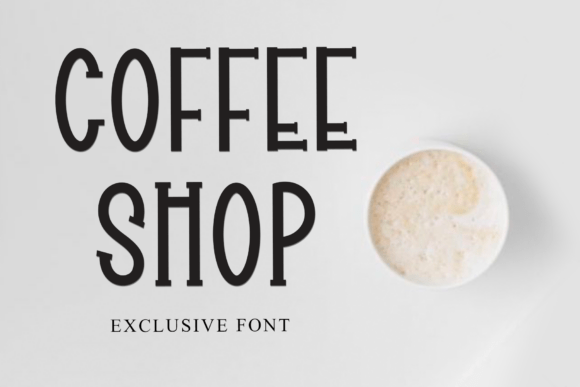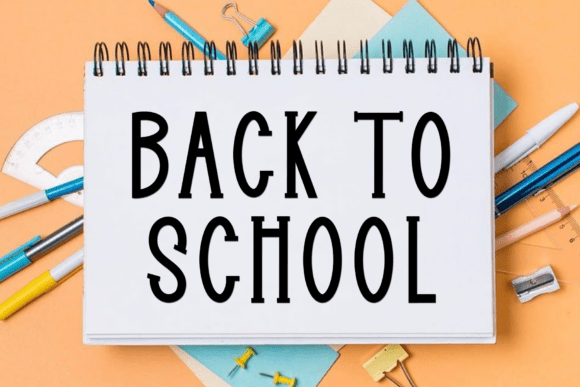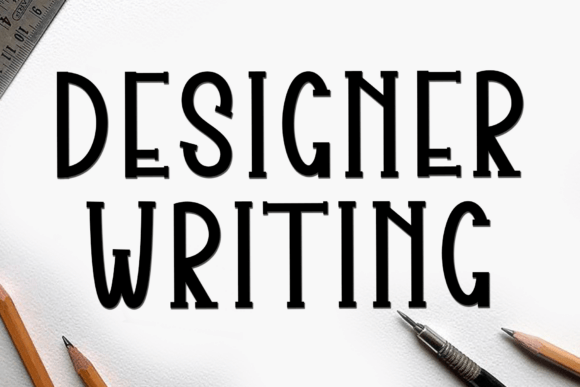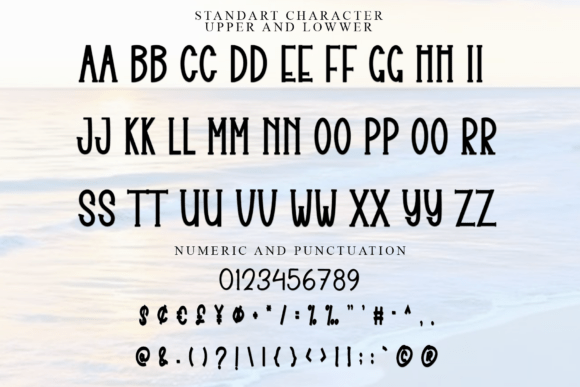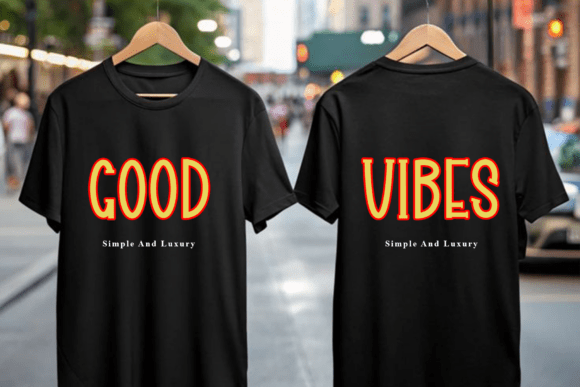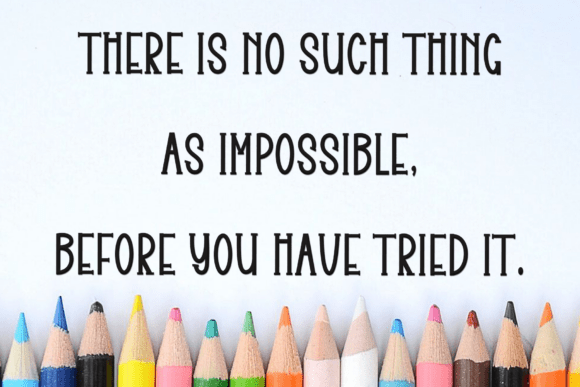
The Magic of Cake Milk Font: Bringing Holiday Cheer to Your Designs
As the holiday season approaches, designers everywhere start brainstorming ideas for festive projects. You’re browsing through font collections, searching for the perfect typeface to capture the essence of the season. And then, it hits you – the moment of inspiration when you stumble upon the Cake Milk Font. Its whimsical flair and decorative elements transport you to a world of wonder, filling you with excitement to create something truly special.
The Cake Milk Font is a match made in heaven for designers looking to add a touch of magic to their holiday-themed projects. Perfect for greeting cards, gift tags, and more, this font brings a cheerful and nostalgic ambiance to your words. With its PUA encoding, you can easily access all the amazing glyphs and ligatures, making it a valuable addition to your design toolkit.
Cake Milk Font Key Features
- Font Family: Cake Milk Font offers a unique and modern sans-serif font family, ideal for various design applications.
- Unique Characteristics: Cake Milk Font features a unique blend of modern and vintage elements, giving it a distinctive and eye-catching appearance.
- Kerning and Ligatures: The font includes carefully designed kerning and ligatures, ensuring smooth text rendering and a professional look.
Cake Milk Font Review
At first glance, the Cake Milk Font is a delightfully quirky addition to any design project. Its ✨ playful, handwritten feel instantly evokes a sense of warmth and approachability.
- ✨ Unique and playful design style that’s perfect for creative projects or brands looking to stand out.
- ✨ Highly legible and easy to read, even in smaller font sizes.
- ✨ Offers a range of weights and styles to suit different design needs.
- ⚠️ May not be suitable for formal or professional projects where a more serious tone is required.
- ⚠️ Some characters may not be as refined or detailed as other fonts, which could be a concern for designers who need precision.
- ⚠️ Limited language support, which may limit its use in global design projects.
Overall, I think the Cake Milk Font is a great choice for designers looking to add some personality to their work. While it may not be the best fit for every project, it’s certainly a fun and engaging option to have in your toolkit.
Use Cake Milk Font for:
– Bakery and dessert-themed designs
– Whimsical and playful designs
– Adding a touch of elegance to your designs
– Combining with other fonts for a unique look
Cake Milk Font is perfect for:
– Bakery and dessert packaging
– Social media posts and ads
– Wedding invitations and decorations
– Food and drink branding
Alternatives to Cake Milk Font for Designers
Oswald
Oswald is a sans-serif typeface that offers a similar friendly and approachable feel to Cake Milk Font. It is a versatile font suitable for various design projects, including logos, headings, and body text. Oswald’s geometric shapes and clean lines make it a great alternative for designers who want a more modern look.
Comparison: Oswald has a more geometric and modern feel compared to Cake Milk Font’s rounded edges. Oswald is ideal for digital design projects, while Cake Milk Font is better suited for print materials.
Lato is a sans-serif typeface that provides a clean and elegant look. It is designed to be highly legible, making it suitable for body text and headings. Lato’s rounded edges give it a friendly and approachable feel, similar to Cake Milk Font. However, Lato has a more refined and sophisticated look.
Comparison: Lato has a more refined and sophisticated look compared to Cake Milk Font’s playful feel. Lato is ideal for corporate and branding projects, while Cake Milk Font is better suited for creative and artistic projects.